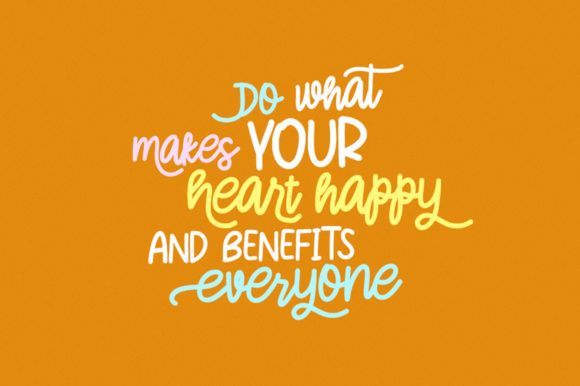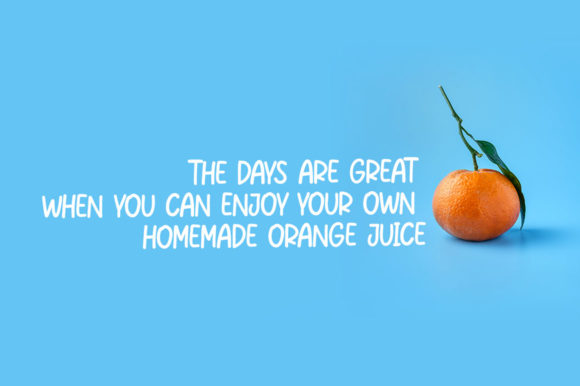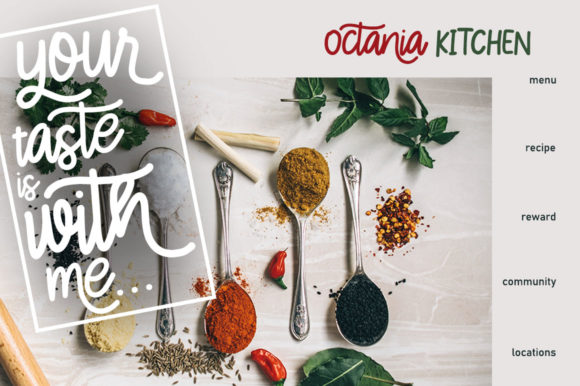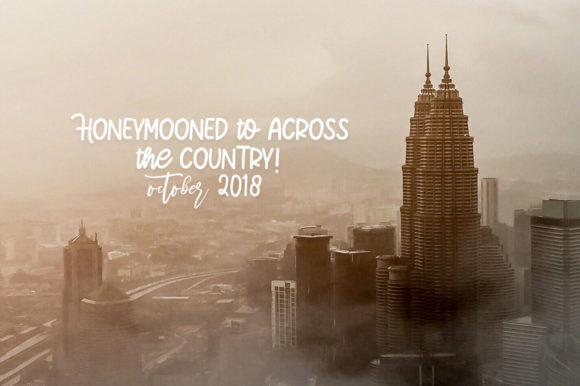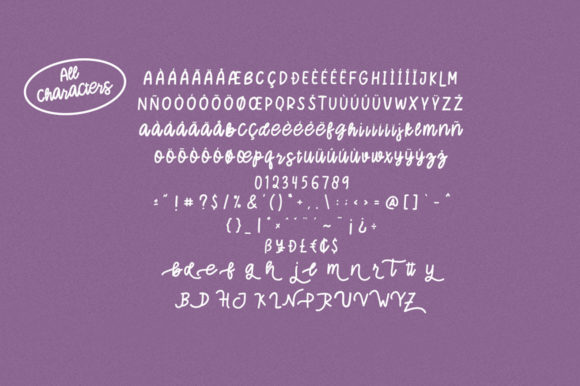
Hello Love Font
About Hello Love Font
Honey Love is a pretty and delicate handwritten font. It has beautiful and well balanced characters and as a result, it matches a wide pool of designs. Add it to your most creative ideas and notice how it makes them come alive!